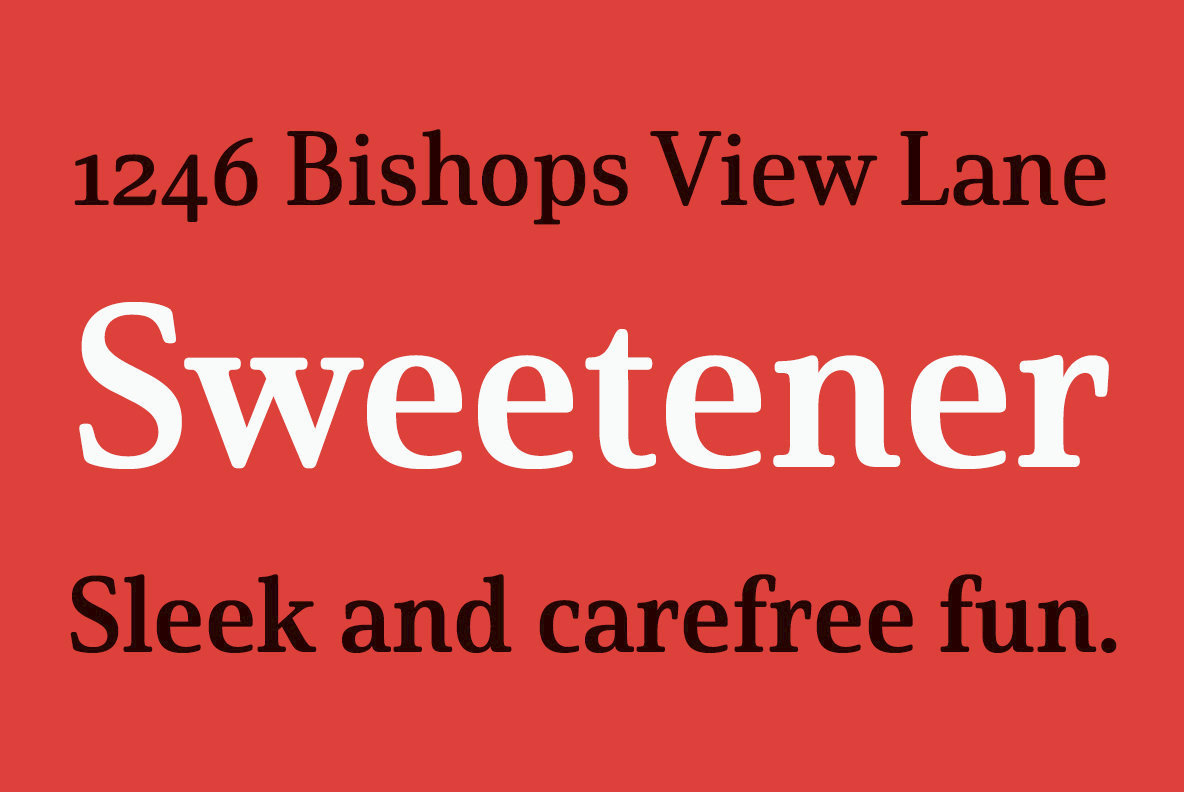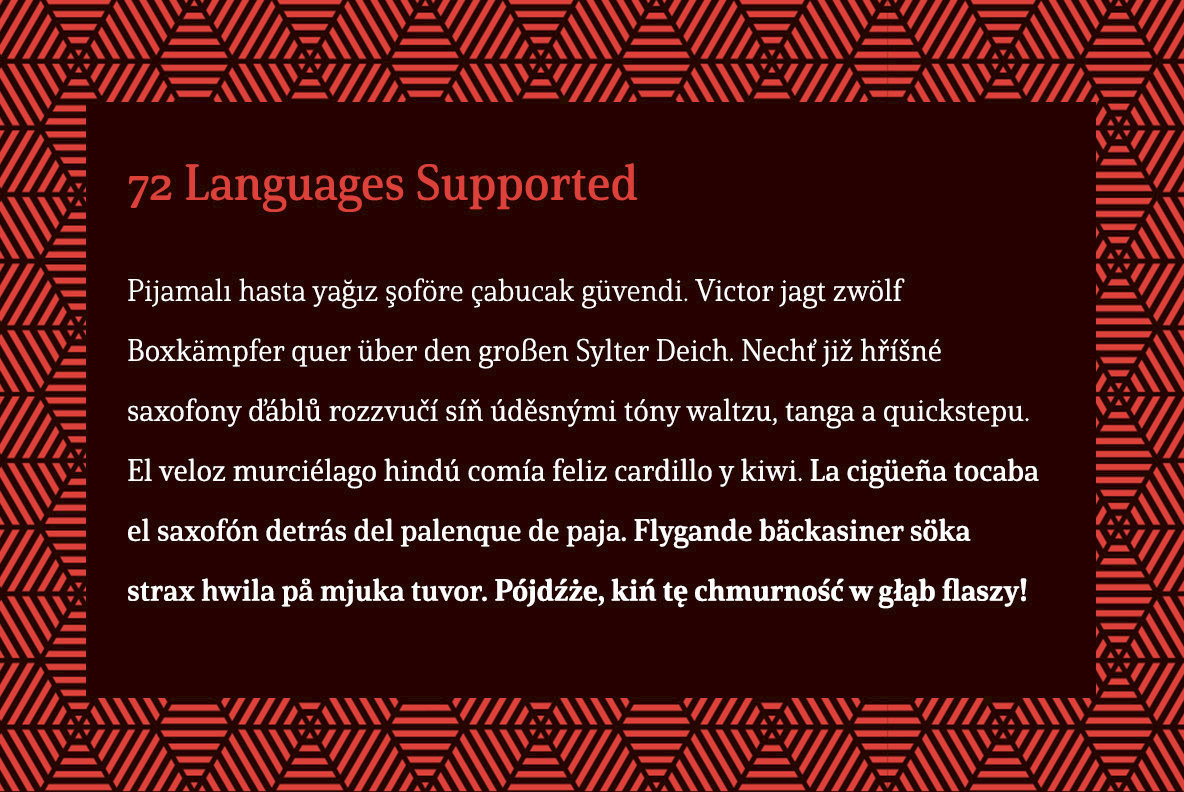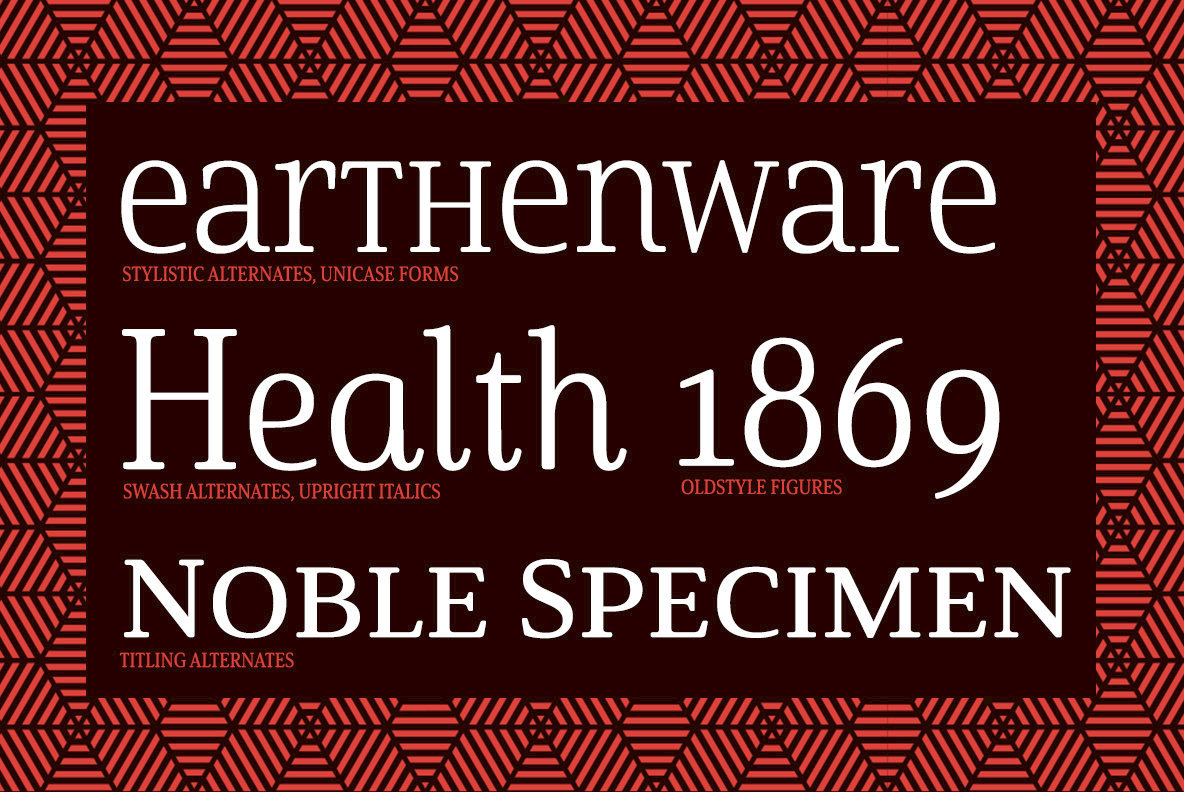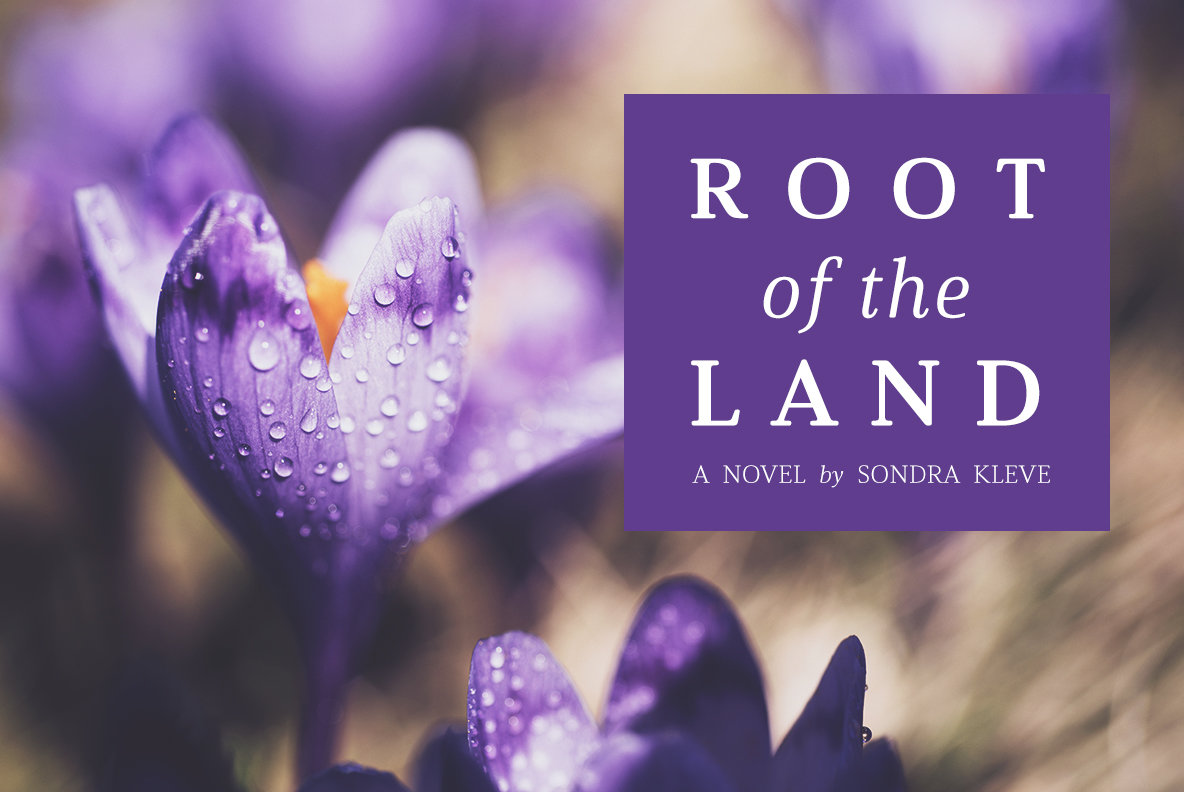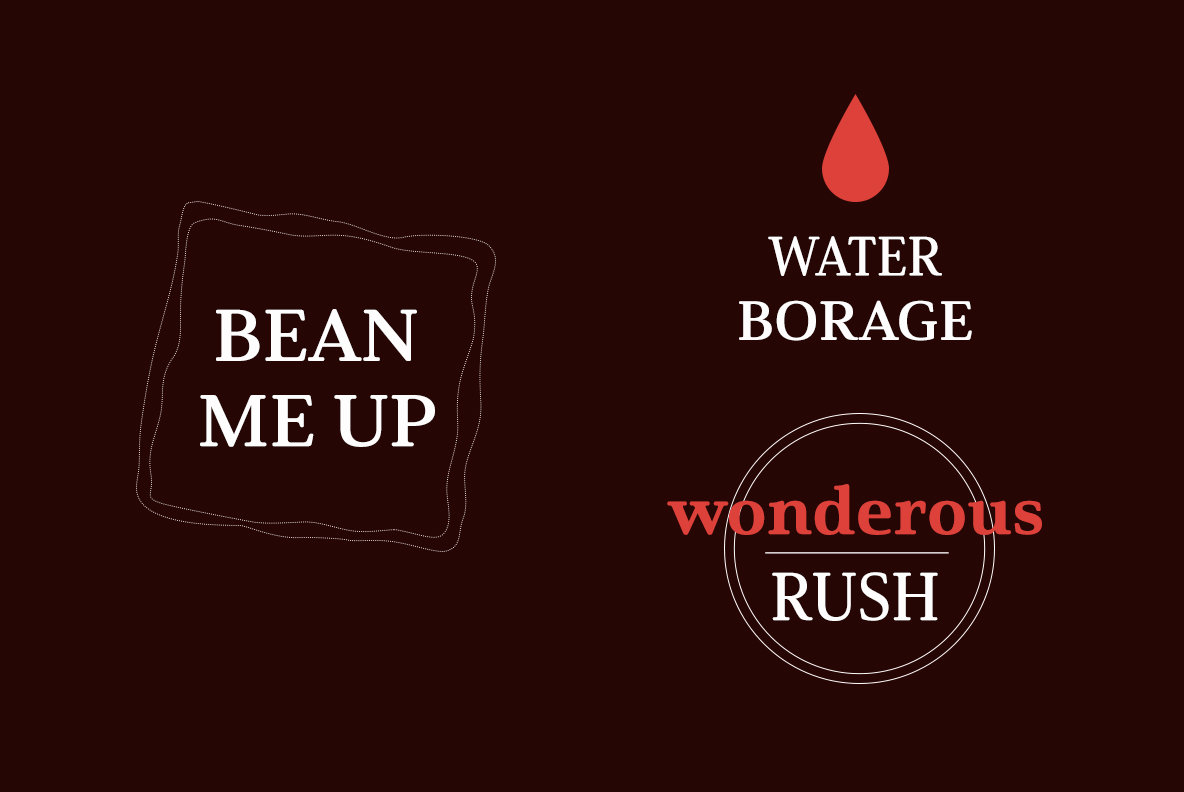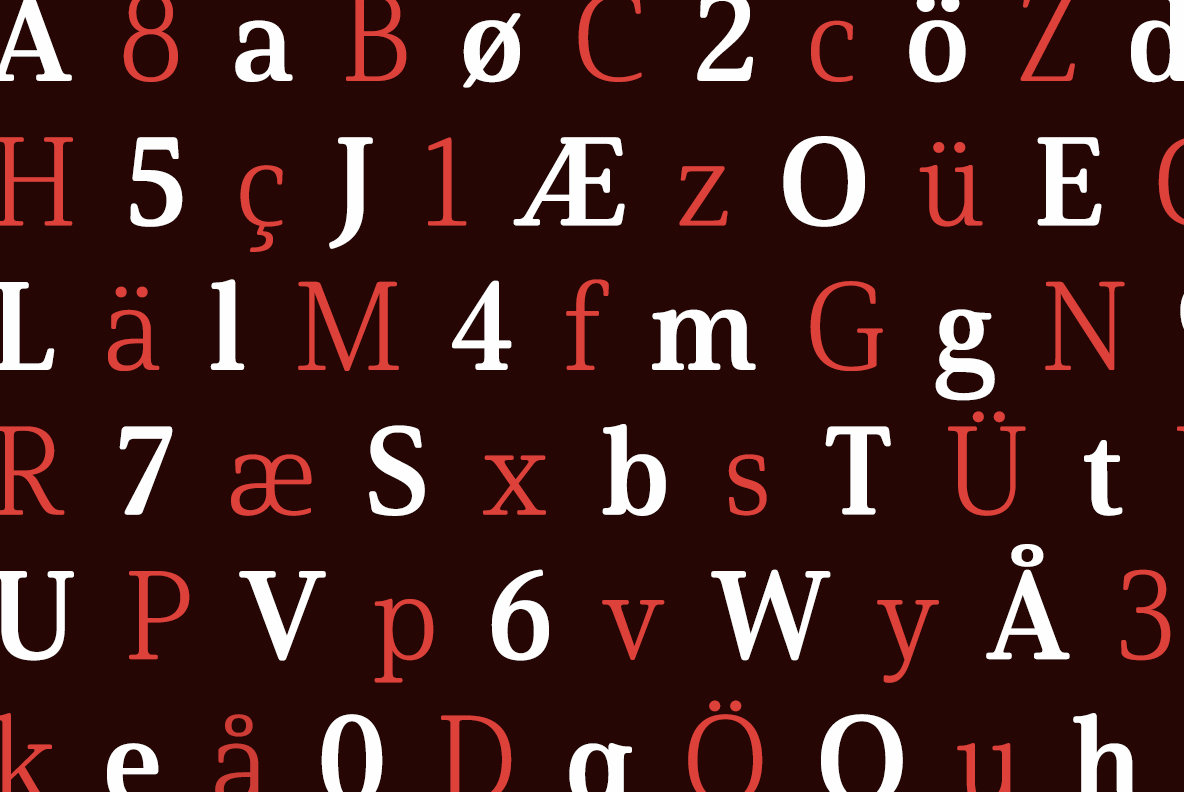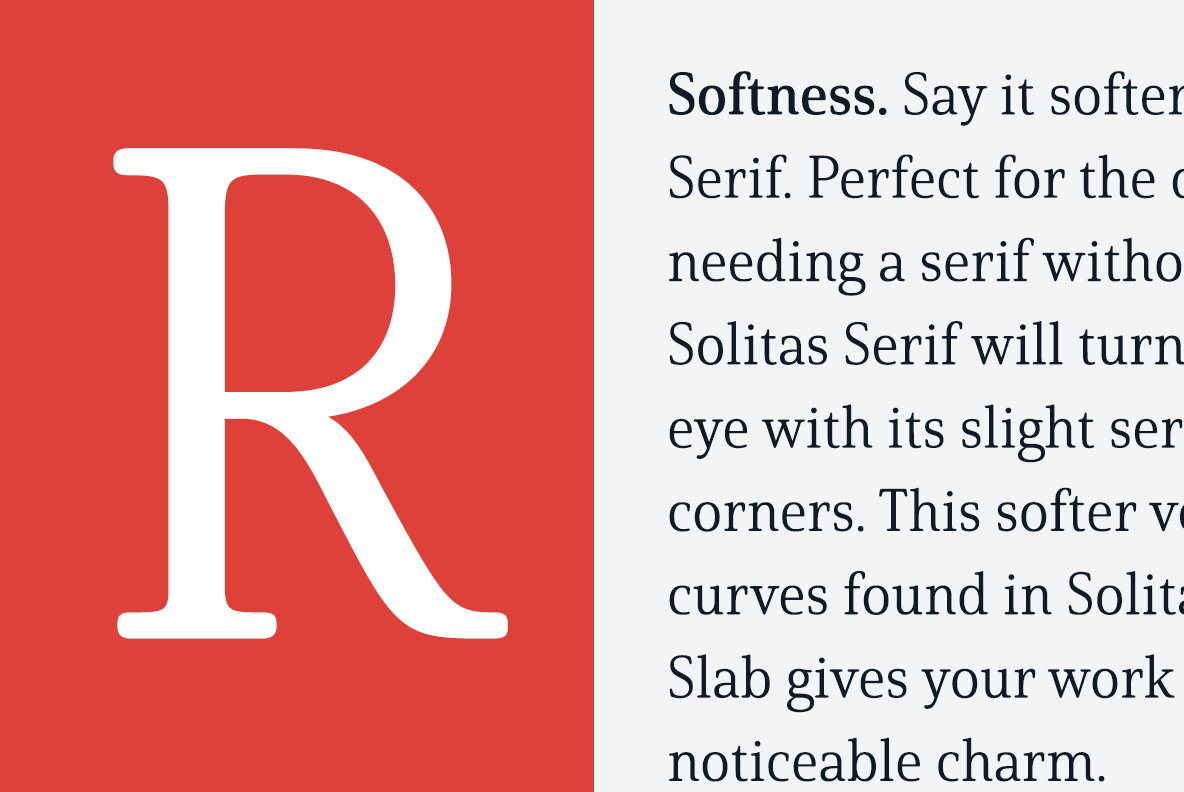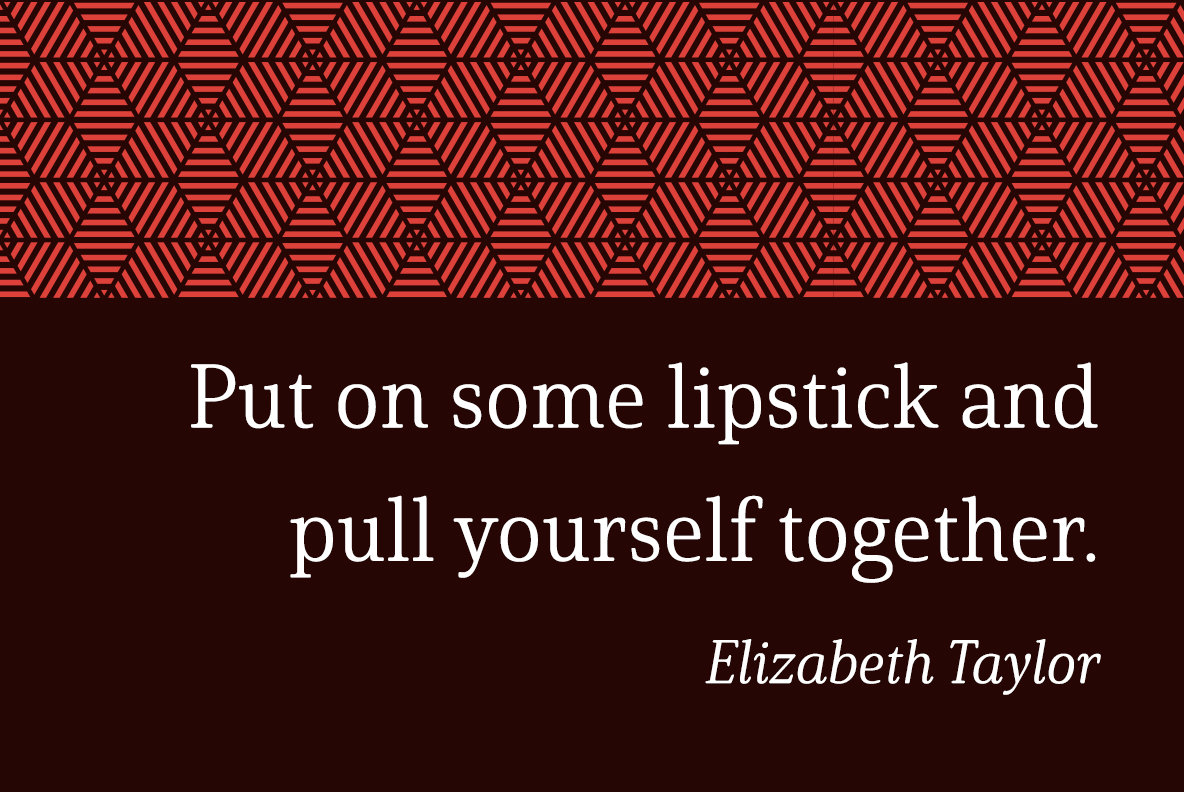
Solitas Serif Font
Solitas Serif's OpenType options include capitals, ligatures, ordinal numbers, fractions, denominators, superscripts and subscripts. Serif also supports Western European, Central European and Eastern European languages.
For a sweet approach, charm your reader with simple and soft. Charm them with the subtle Solitas Serif.